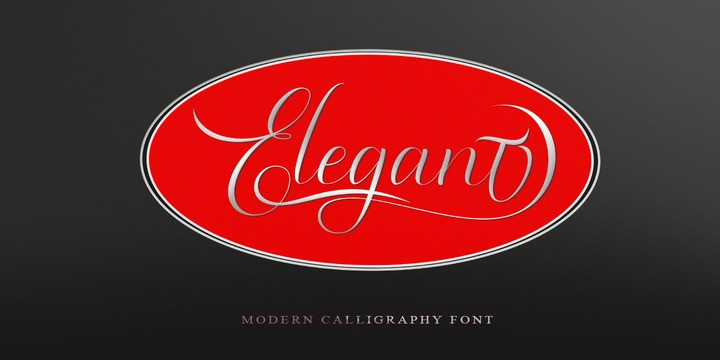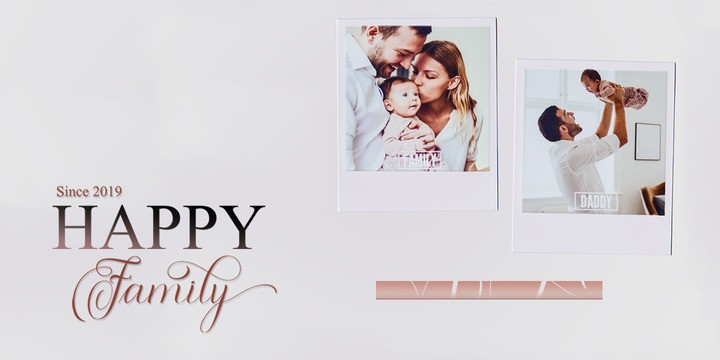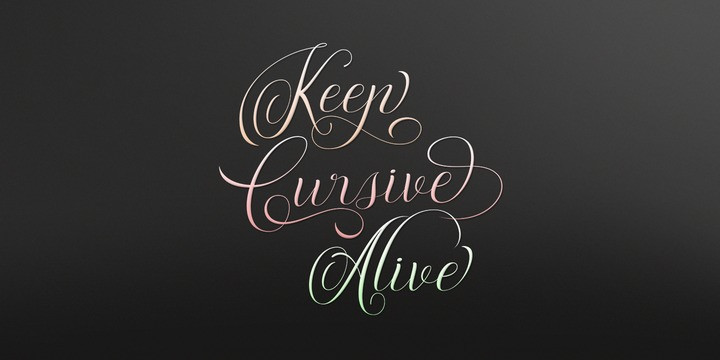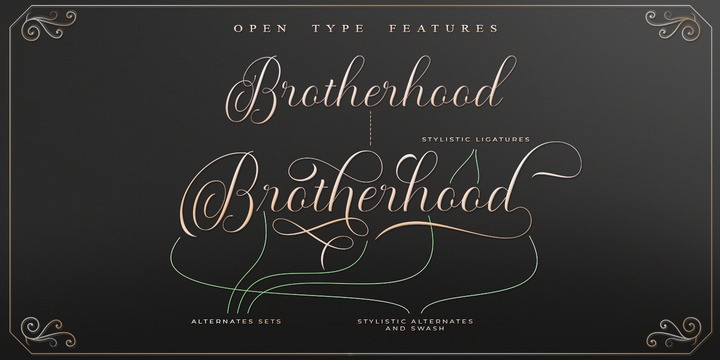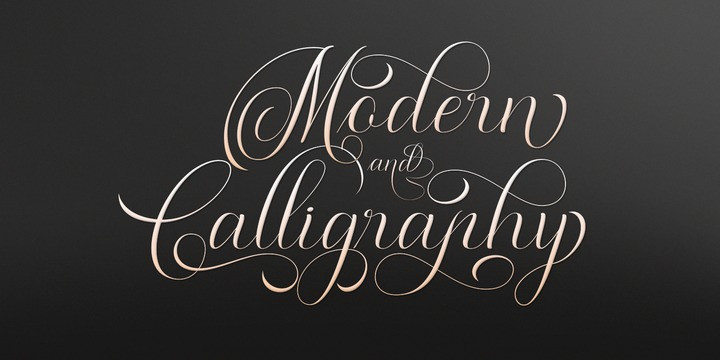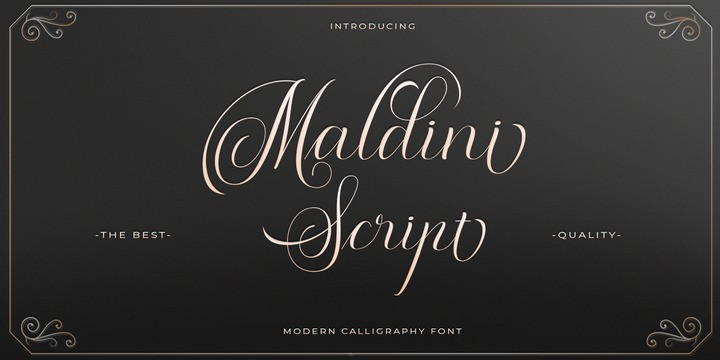
Maldini Script Font
Maldini Script is a classic calligraphy font. This is a classic thin font with an italic style. Here you will get a beautiful classic font. This font is available in several modern swirls that can make your work look elegant, sweet and perfect.
With this style, this font will be suitable for logos, branding projects, design of household appliances, product packaging, mugs, quotes, posters, shopping bags, logos, t-shirts, book covers, business cards, invitation cards, greeting cards, and all your other beautiful projects.
You can use this font for your work very easily. Because there are many features in it. Contains a complete set of upper and lowercase letters, punctuation, numbers and multilingual support. This font also includes several ligatures and alternative styles Set Stylistic For those of you who have software that is able to work OpenType (Corel Draw / Photoshop / Illustrator / InDesign).